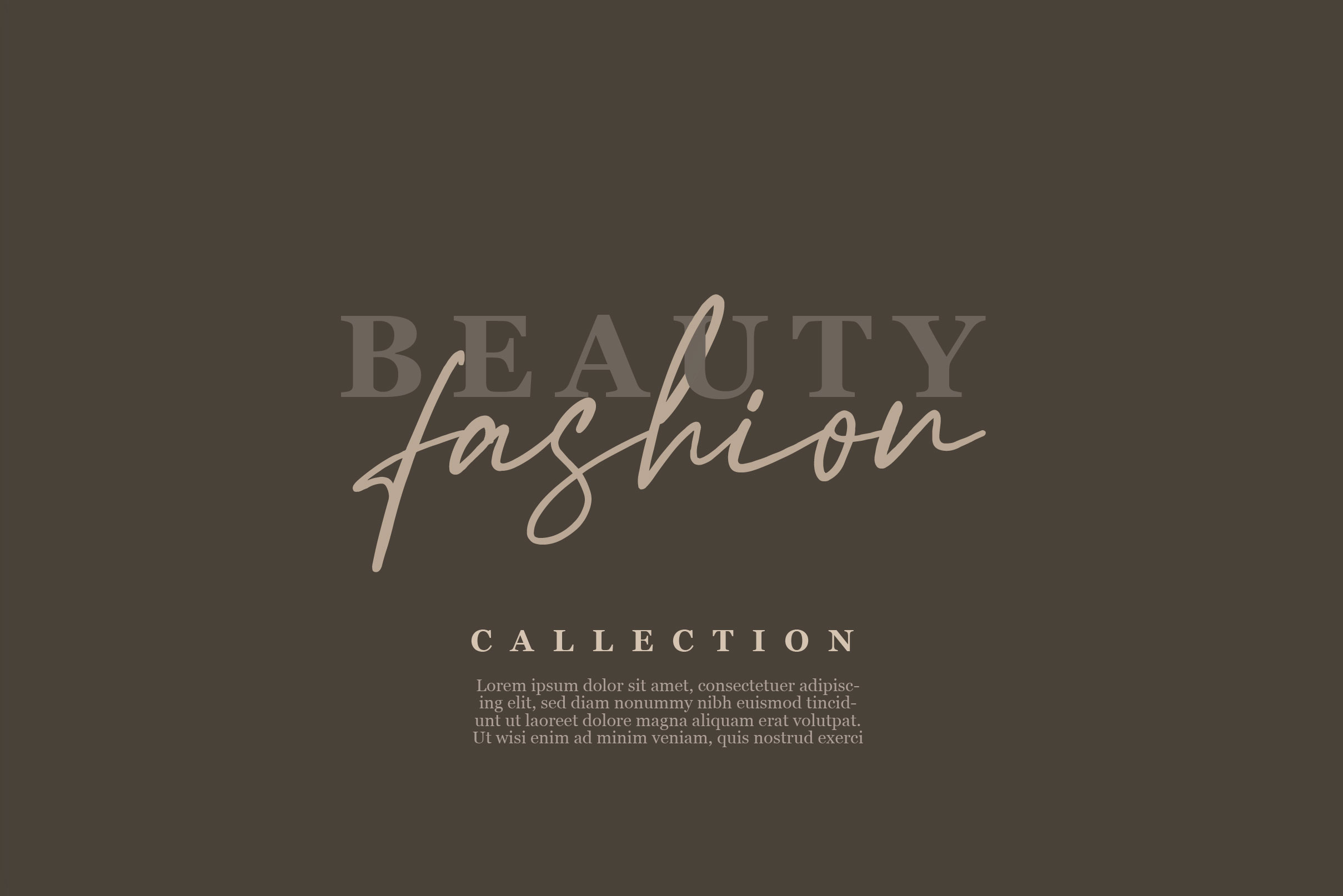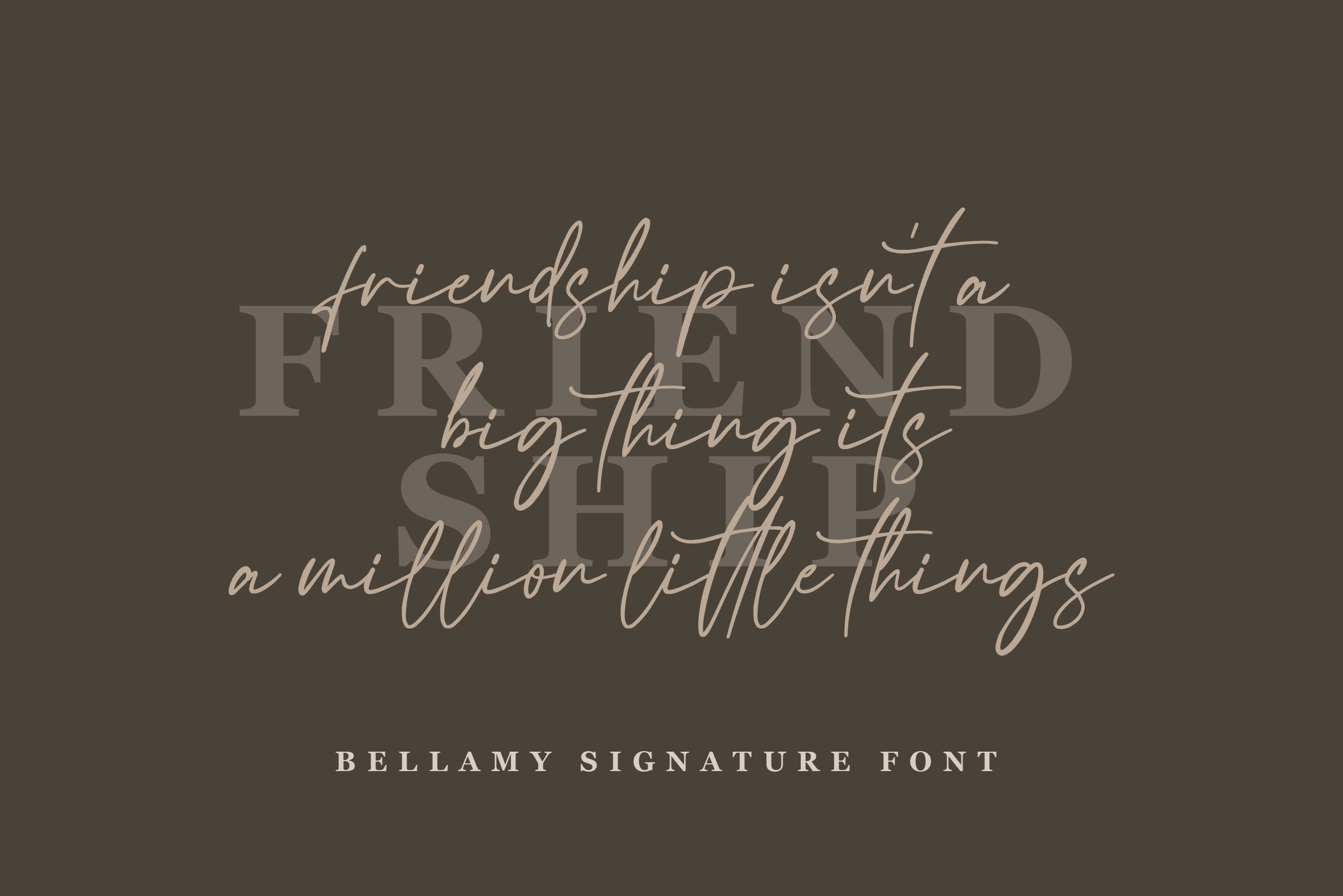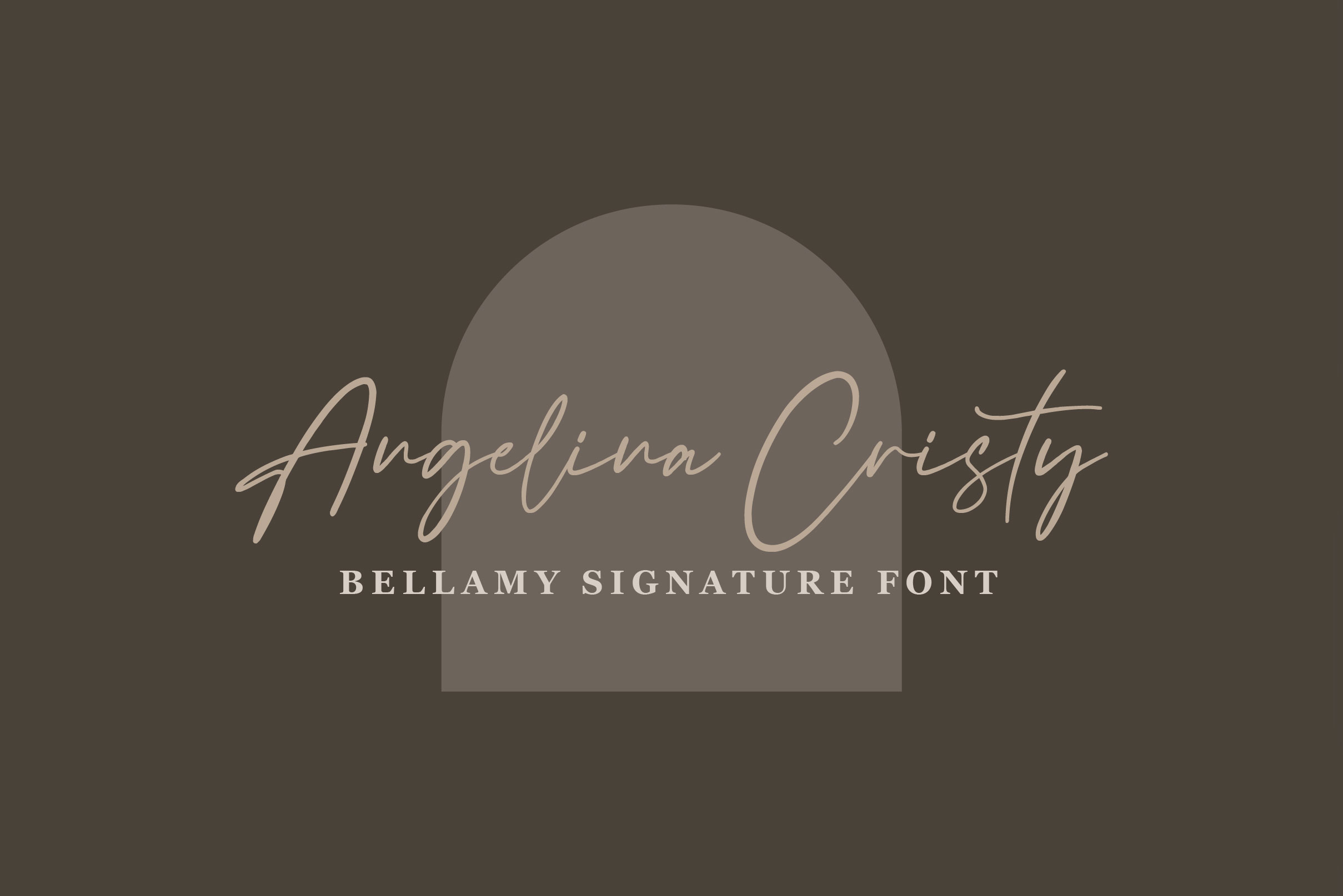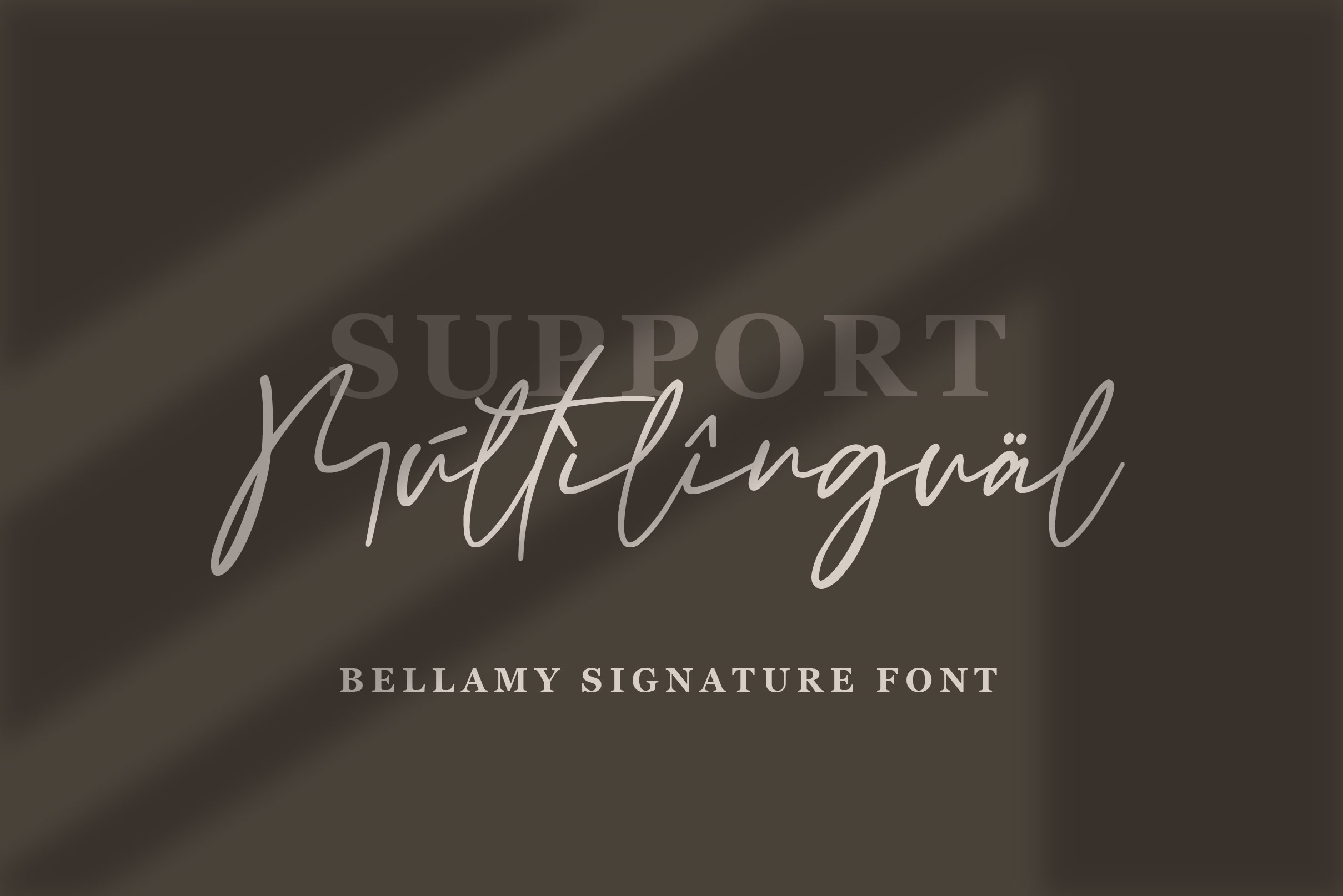
Bellamy Signature Font
Bellamy Signature Font is a thin and authentic script typeface. The font is suitable for any branding project like logo, t-shirt printing, esports, and many more. It will look outstanding in a wide range of contexts.
– Uppercase, Lowercase, Numeral & Punctuation
– Alternate Letters, Ligature & Swash/Tail
– Multilingual & PUA Encoded